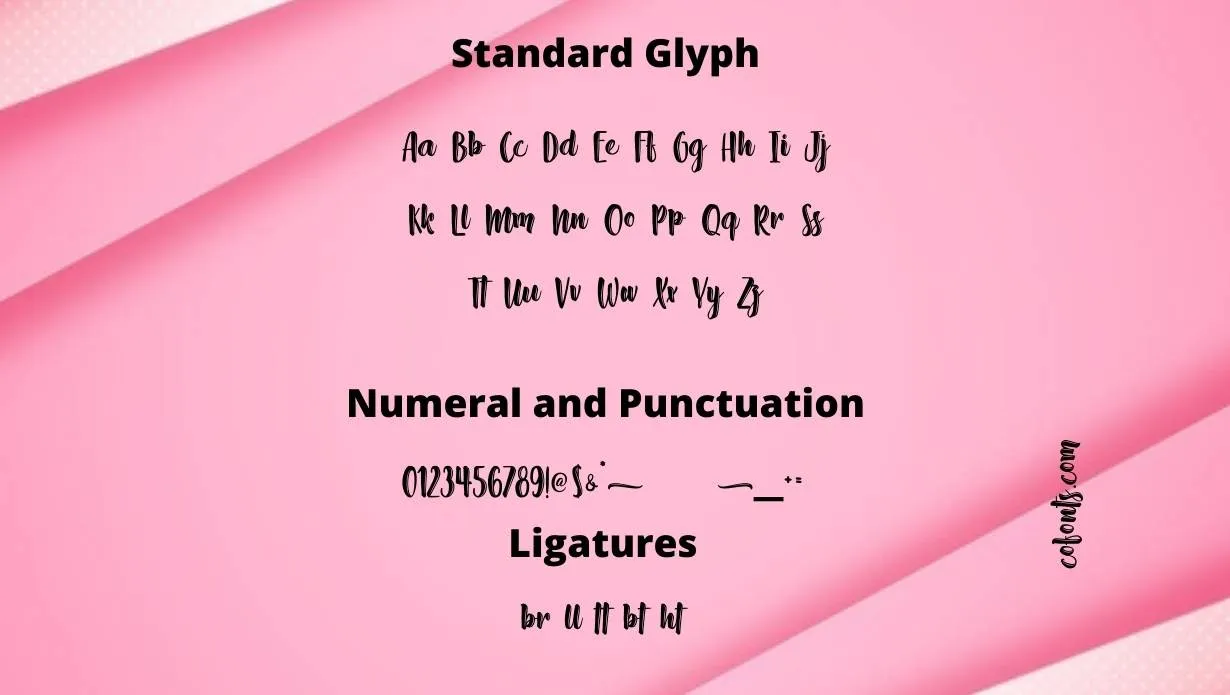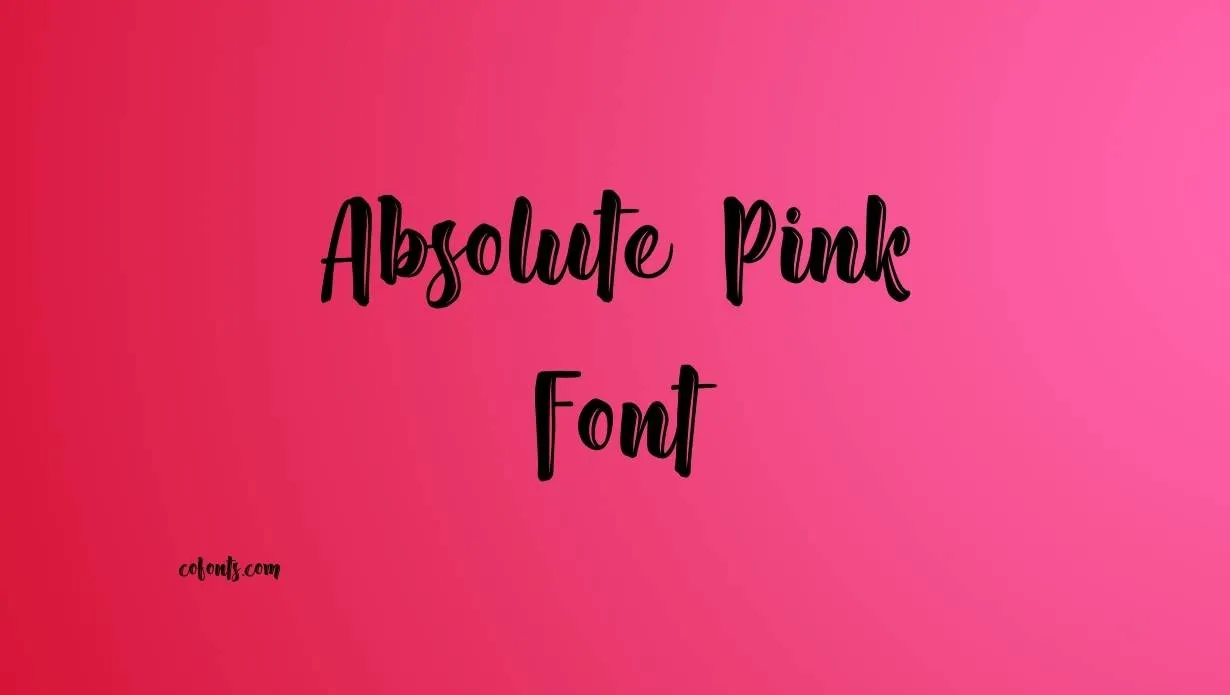
Presenting you a wonderful style of unique and amazing style of texture, that is called Absolute Pink font. This is a lovely design texture of the script family member. That has a wonderful letter appearance in various styles of font. This various style of texture is designed by one of the most famous and well-reputed typefaces designers, who is known as Suthi Srisopha.
This texture is released in the year of March 2018 and has a regular style of weight. This regular style consists of more than two hundred and ninety-nine glyphs, with extra characters, punctuations, and some special language supports. That is enough to use this font in any design.
Usage of Absolute Pink Font
This is a wonderful style of a unique typeface. That is stunning for a web base or print base texture appearance for any size of the screen including small to a large screen. This unique style design of the font is a lovely result for posters, banners, and flyers.
This is a perfect typeface for logos and graphic designs, you can use this amazing font for monograms, book covers, heading or titles, web designing with CSS, wedding cards, invitation cards, T-shirts, and Jacket designs.
Who designs the Absolute Pink typeface?
This various style of texture is designed by one of the most famous and well-reputed typefaces designers, who is known as Suthi Srisopha.
What is an Absolute Pink typeface?
Absolute Pink font is a lovely design texture of the script family member, that has a wonderful letter appearance of various style of font.
What typeface goes best with Absolute Pink?
There are a lot of typefaces, that get a match this typeface but, the pairing typeface to this font as I observed has a Painter Font.